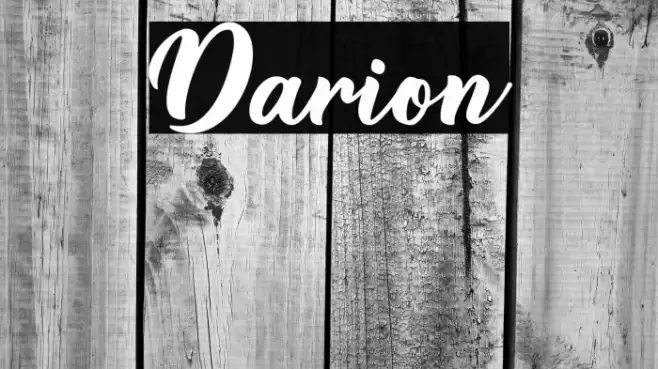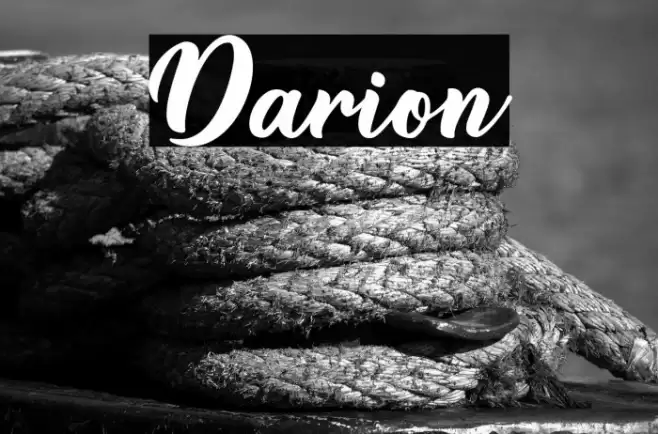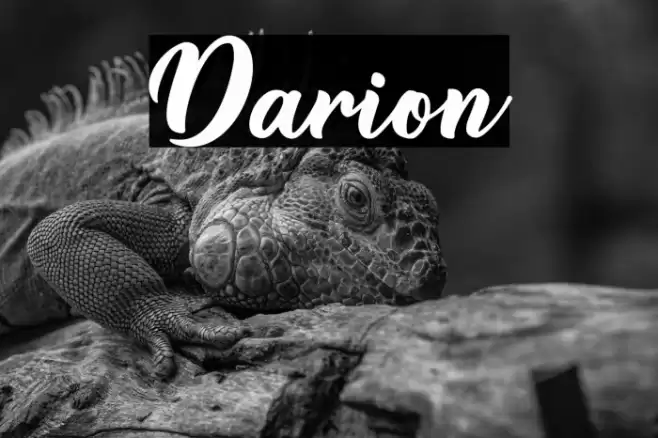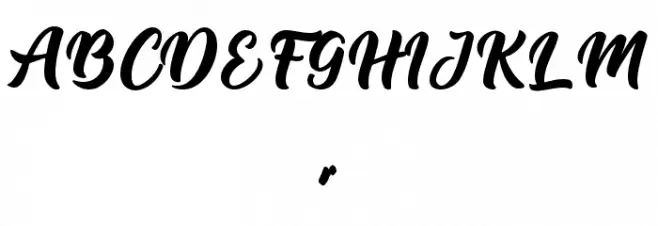
Darion Font
Darion Description
This font exudes a bold and expressive style with its flowing script design. The characters are elegantly connected, creating a sense of movement and fluidity. The uppercase letters are grand and sweeping, while the lowercase letters maintain a consistent rhythm with their rounded forms. The font's strokes are thick and confident, offering a high contrast that enhances its readability and visual impact. It's perfect for making a statement, with its decorative flair and artistic appeal. The special characters are seamlessly integrated, maintaining the font's cohesive look.
A bold, expressive script font with high contrast and flowing connections from Regular fonts.
- Font: Darion
- Proposed Projects: Ideal for branding, invitations, greeting cards, and artistic projects where a personal touch is desired.
- Use Case: Logos, Headlines, Invitations